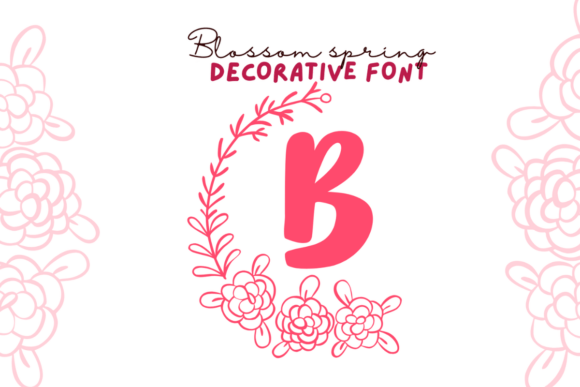
Introducing Blossom Spring Font: The Perfect Decorative Font for Your Creative Projects
Are you looking for a beautiful and unique font to add a touch of elegance to your creative projects? Look no further than the Blossom Spring Font. This stunning decorative font is perfect for a variety of uses, from taking notes and writing diaries to creating greeting cards and social media posts.
What is Blossom Spring Font?
Blossom Spring Font is a decorative font designed to add a touch of springtime charm to your projects. Its delicate and intricate design makes it perfect for a wide range of applications, from personal to commercial use. The font is highly versatile and can be used for various design projects, such as:
- Handwritten notes and journals
- Greeting cards and invitations
- Banners and posters
- Social media posts and graphics
- Mugs and ceramics
- T-shirts and apparel
- Stationery and paper crafts
Features of Blossom Spring Font
The Blossom Spring Font has several features that make it a great choice for your creative projects. Some of its key features include:
- Unique and decorative design
- Highly legible and easy to read
Benefits of Using Blossom Spring Font
Using the Blossom Spring Font can bring several benefits to your creative projects. Some of the benefits include:
- Adds a touch of elegance and sophistication to your designs
- Helps to create a unique and distinctive visual identity
- Can be used to convey a sense of springtime and renewal
- Highly versatile and can be used for various design projects
Tips and Tricks for Using Blossom Spring Font
Here are some tips and tricks to help you get the most out of the Blossom Spring Font:
- Use it for headings and titles to add a touch of elegance
- Experiment with different colors and textures to add depth and interest
- Pair it with other fonts to create a unique and interesting combination
- Use it for creating social media graphics and posts to add a personal touch
Blossom Spring Font in Graphic Design
The Blossom Spring Font can be a valuable addition to any graphic design project. Its unique and decorative design makes it perfect for a wide range of applications, from branding and advertising to packaging and digital design.
Graphic designers can use the Blossom Spring Font to:
- Create eye-catching headings and titles
- Add a touch of elegance and sophistication to designs
- Convey a sense of springtime and renewal
- Experiment with different typography and design elements
Blossom Spring Font in Digital Design
The Blossom Spring Font can also be used in digital design, such as:
- Web design: Use it for headings and titles to add a touch of elegance and sophistication
- Social media graphics: Use it to create eye-catching graphics and posts
- Email marketing: Use it to add a personal touch to email campaigns
- Digital art: Use it to create unique and interesting digital art pieces
The Blossom Spring Font is a beautiful and versatile decorative font that can add a touch of elegance and sophistication to your creative projects. Its unique design and highly legible style make it perfect for a wide range of applications, from personal to commercial use. Whether you’re a graphic designer, digital artist, or simply someone who loves to create, the Blossom Spring Font is a great choice for any project.